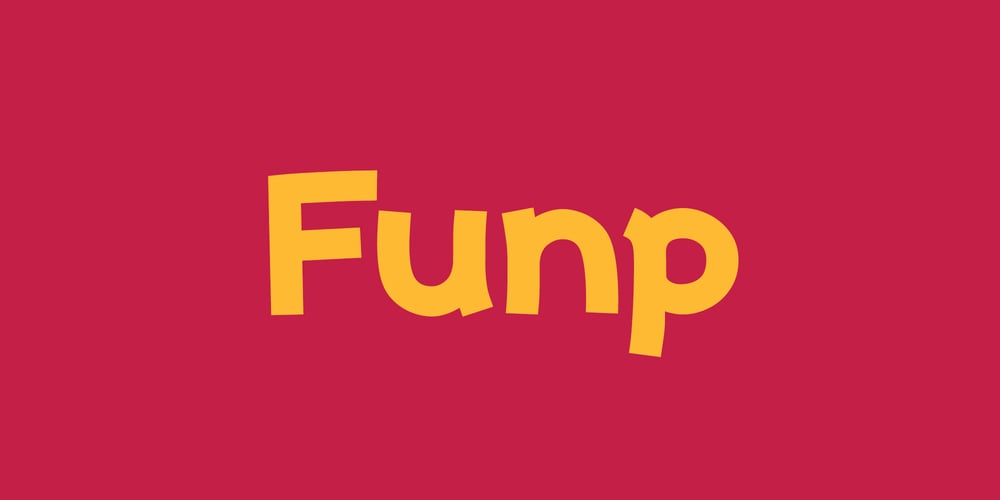
Funp Font Family was designed by Taka Ikari and published by Outerend. Funp contains 1 styles and family package options. A fun and playful display font to be explored for your projects! “Funp” (fun & jump) has been created with the themes of manga, anime, and cosplay from Japanese animation culture. It’ll be a great fit not only for all the print materials like party and event invitations, logos, packaging, and more but also for social media ads and your website designs.